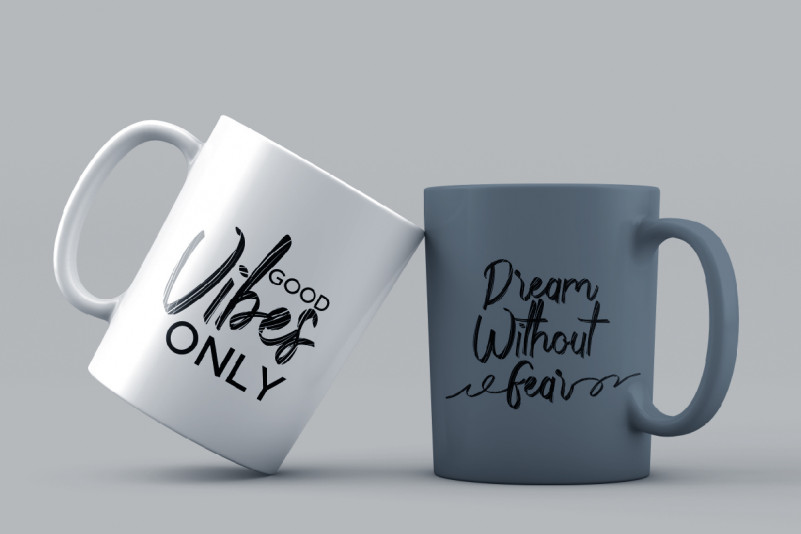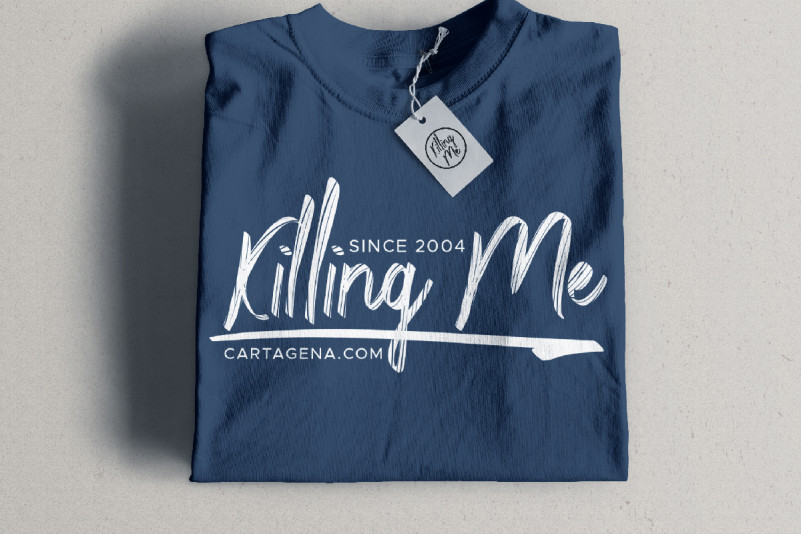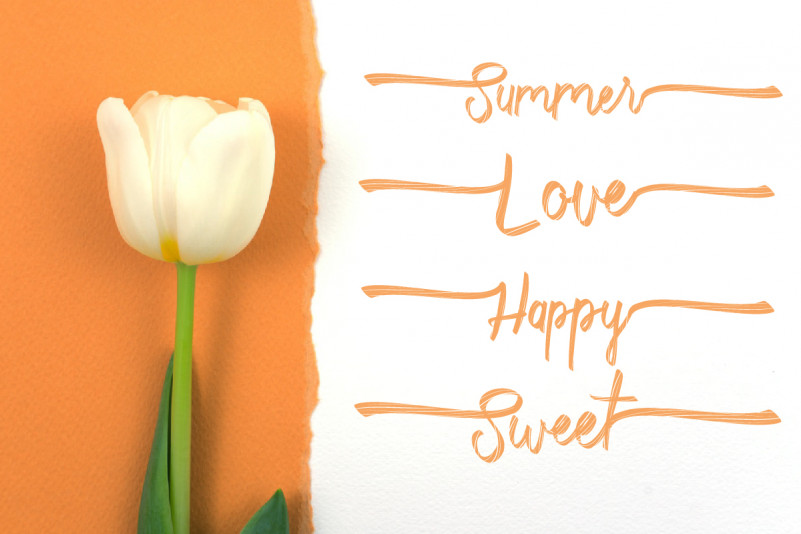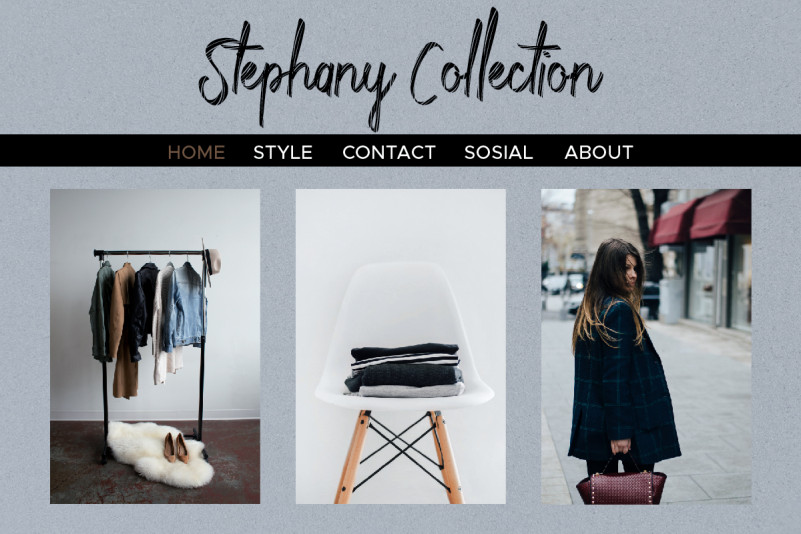
Belgian Flower Brush Font
This is a brush calligraphy font with a unique texture; delivering a stylish script which is guaranteed to add an eye-catching appeal. The style of this font are stylish, classic, elegant, a fresh new handwritten brush script with a touch of class, and of course, outstanding looks